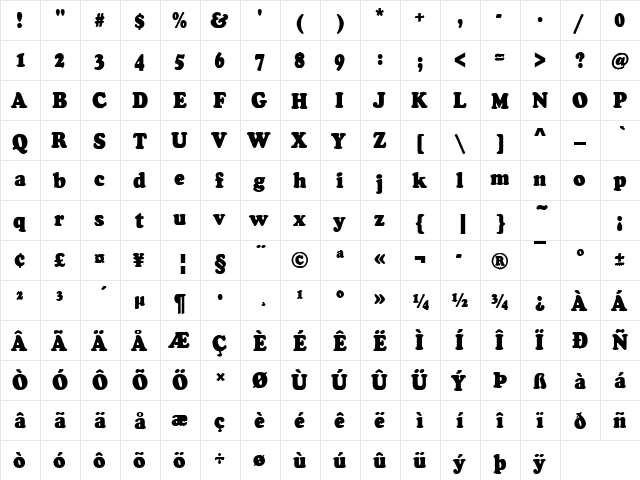
Cooper Becker Antique Cond Regular
Design Context for Cooper Becker Antique Cond Typeface
Cooper Becker Antique Cond has the warm character of retro typography — evoking diners, record sleeves, and the golden age of print advertising.
Font Pairing: Combine Cooper Becker Antique Cond with a simple slab or neutral sans — period-accurate companions reinforce the vintage feel without competing for attention.
Pro Tip: Use Cooper Becker Antique Cond for headlines and pull quotes rather than body copy — its personality is best appreciated in short, focused bursts.